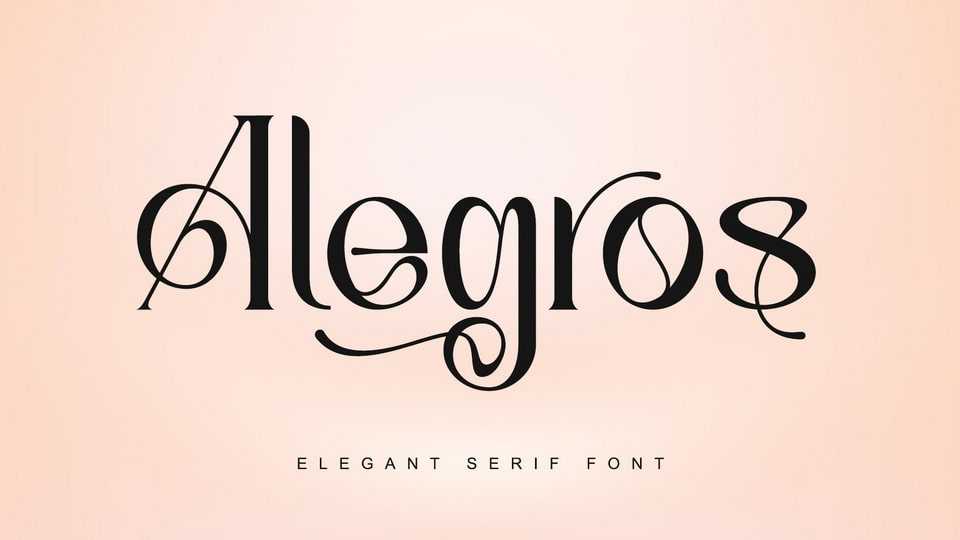
Download Alegros font, a stylish and elegant serif typeface. Alegros is suitable for a wide variety of designs due to its neat and clean style. Incredibly versatile, this font fits a vast range of designs, elevating them to the highest levels.
Designer: Thomas Aradea